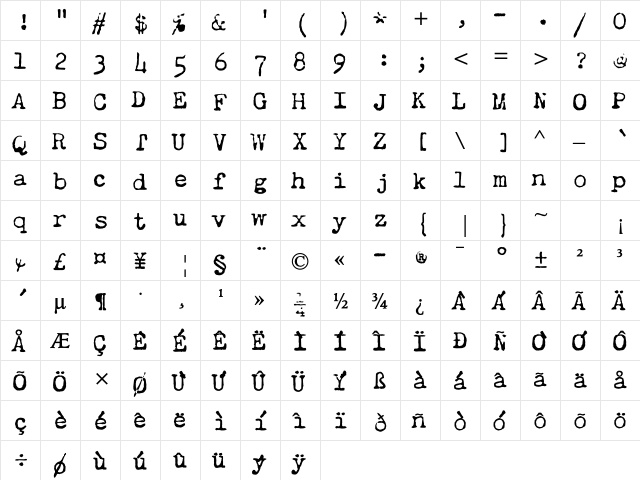
Chandler42RoughNoir Regular
Design Context for Chandler42RoughNoir Typeface
Chandler42RoughNoir trades polish for personality, using distressed and eroded forms to bring grit and attitude to creative work.
Suited to punk-influenced zines, underground music branding, streetwear, and raw, anti-corporate design.
Pro Tip: Pair Chandler42RoughNoir with intentionally raw or lo-fi design elements. Fighting against it with overly polished surroundings will undermine its personality.